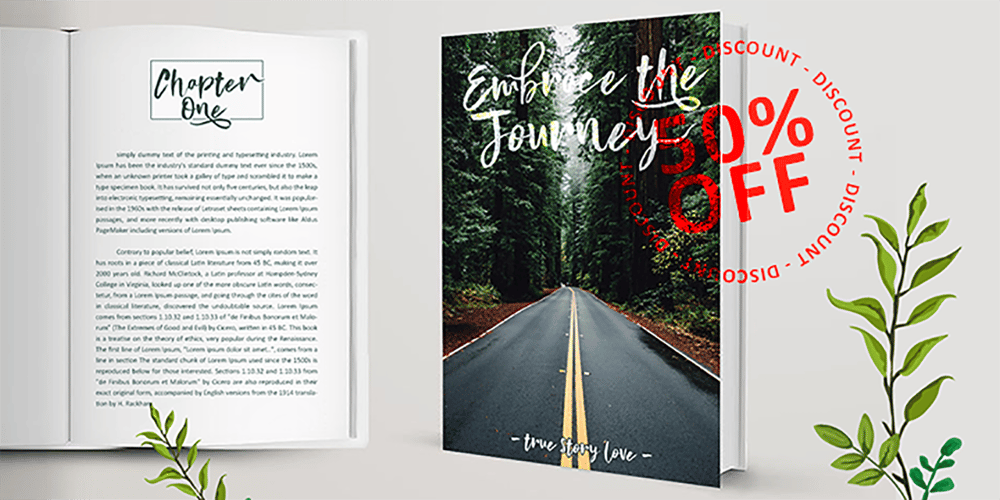
Violaceous Font Family was designed by Suandana ipandemade and published by madeDeduk. Violaceous contains 1 styles and family package options. Violaceous is a modern brush script and is perfect for poster design, book covers, merchandise, fashion campaigns, newsletters, branding, advertising, magazines, greeting cards, album covers, and quote designs and more.Feature Uppercase Lowercase Numbers & Symbols International Glyphs Alternatives Ligatures